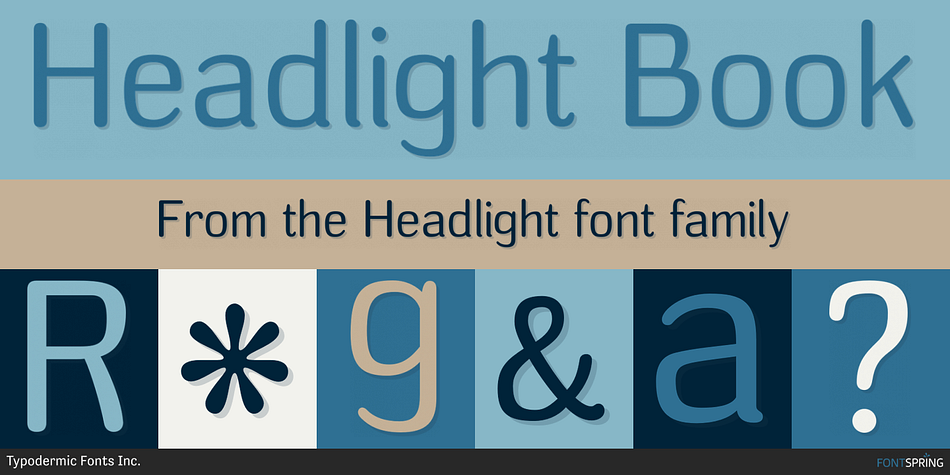
Headlight Book
Headlight is a sans serif font family. This typeface has ten styles and was published by Typodermic Fonts Inc.
Introducing Headlight: the intriguing sans-serif typeface that is anything but ordinary. With its unique blend of oval-nib embellishments and mechanistic squareness, Headlight is a font that demands attention. Designed in a superelliptical style, each letter is crafted with rounded corners and a one-of-a-kind design that sets it apart from other fonts.
But Headlight isn’t just about style—it’s also incredibly functional. Available in five weights and italics, this font is perfect for a wide range of applications, from branding and advertising to editorial design and more. And with its numerals available in both lined proportional and old-style proportional styles, Headlight is a font that can truly do it all.